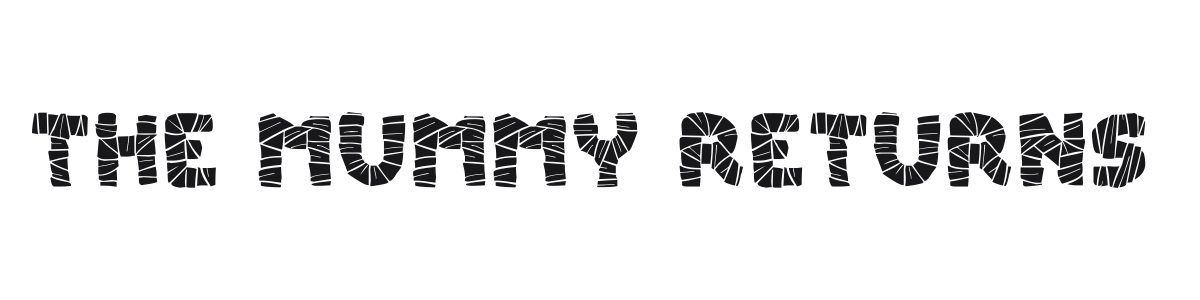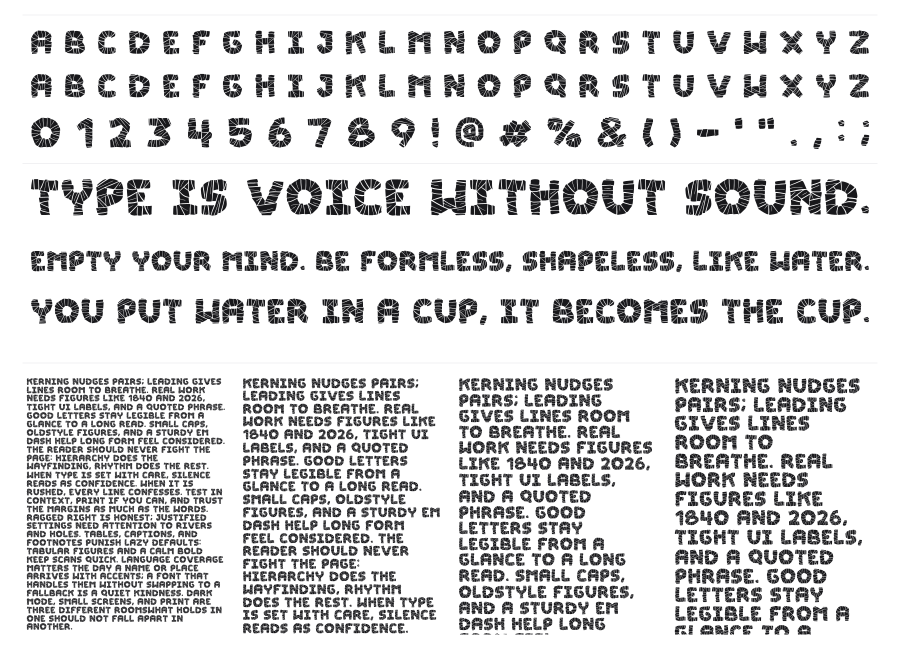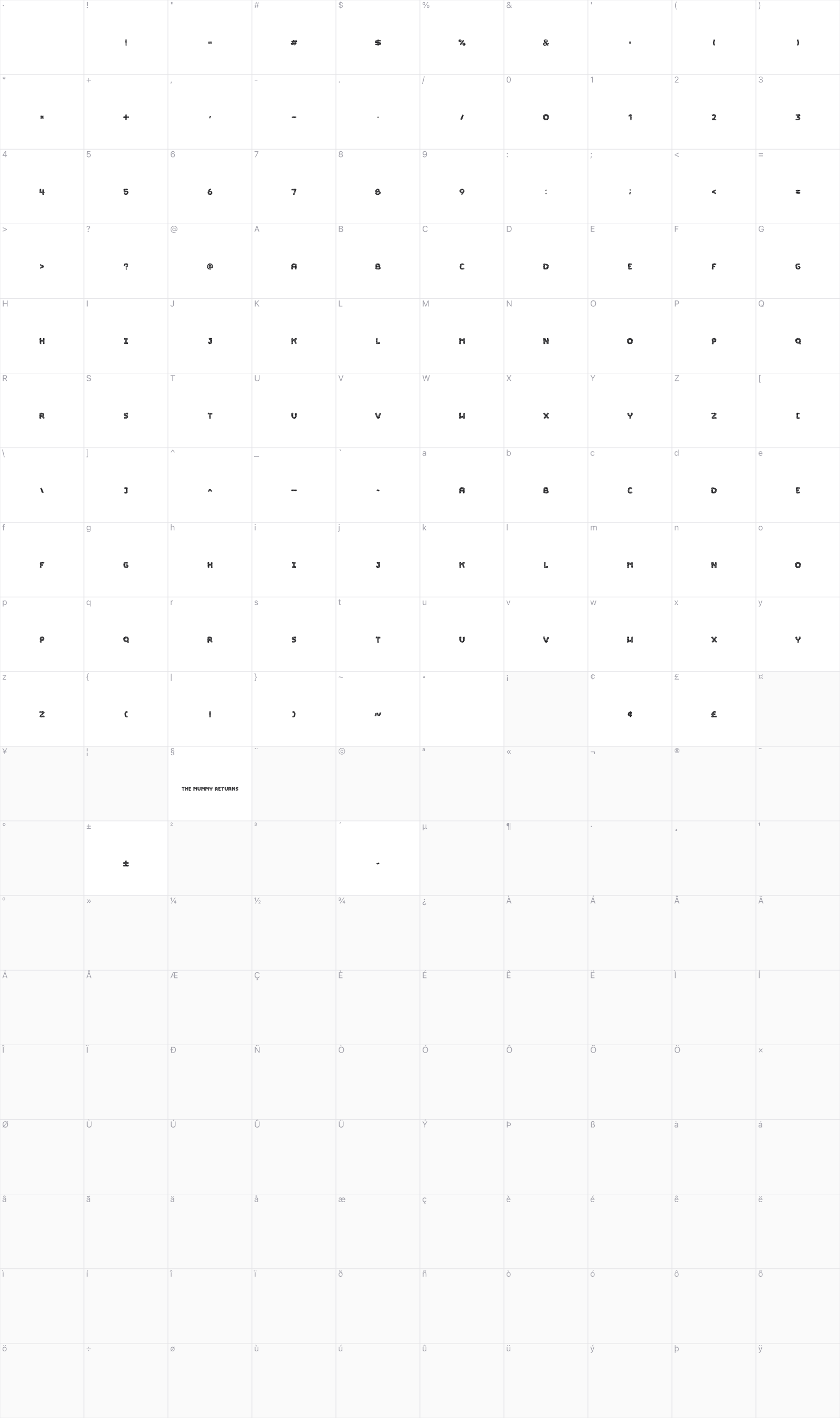
The Mummy Returns
The Mummy Returns is a bold themed display font where every character is wrapped in a cracked bandage texture, directly evoking its ancient Egyptian horror namesake. The underlying structure is a chunky, wide grotesque, but the fracture pattern across each letter is the real design statement. It works best at large sizes where the bandage detail reads clearly.